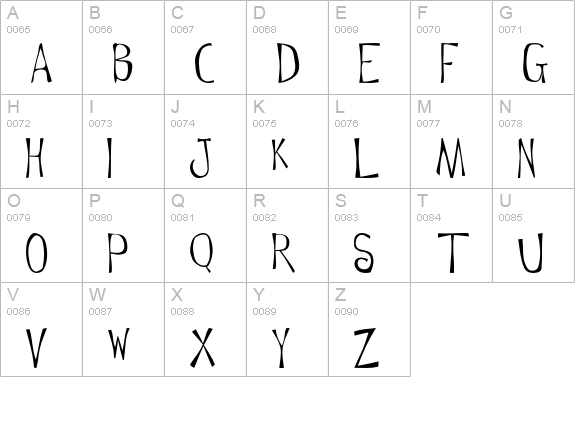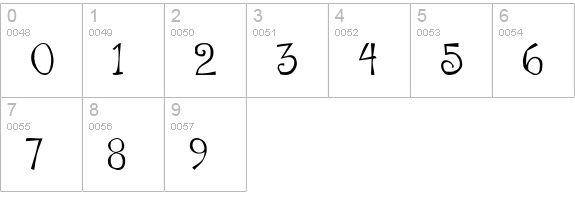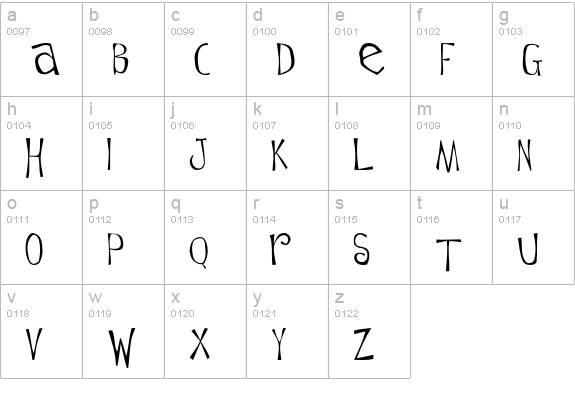
Flowerchild Font Details
Introducing Flowerchild font, a whimsical and playful typeface that brings a touch of nostalgia and charm to any design project. Inspired by the carefree spirit of the 1960s and 70s, Flowerchild font is a delightful mix of flowing curves and intricate details that exude a sense of warmth and positivity. This unique font is perfect for adding a retro flair to your branding, packaging, invitations, and more. Its organic and hand-drawn appearance makes it ideal for projects that require a touch of handmade charm. Whether you're working on a vintage-inspired design or simply want to infuse your work with a sense of joy and creativity, Flowerchild font is sure to delight. Best of all, Flowerchild font is available for free download at FontsMarket.com. So go ahead and add a touch of whimsy to your projects with this lovely and versatile typeface. Let your creativity bloom with Flowerchild font!